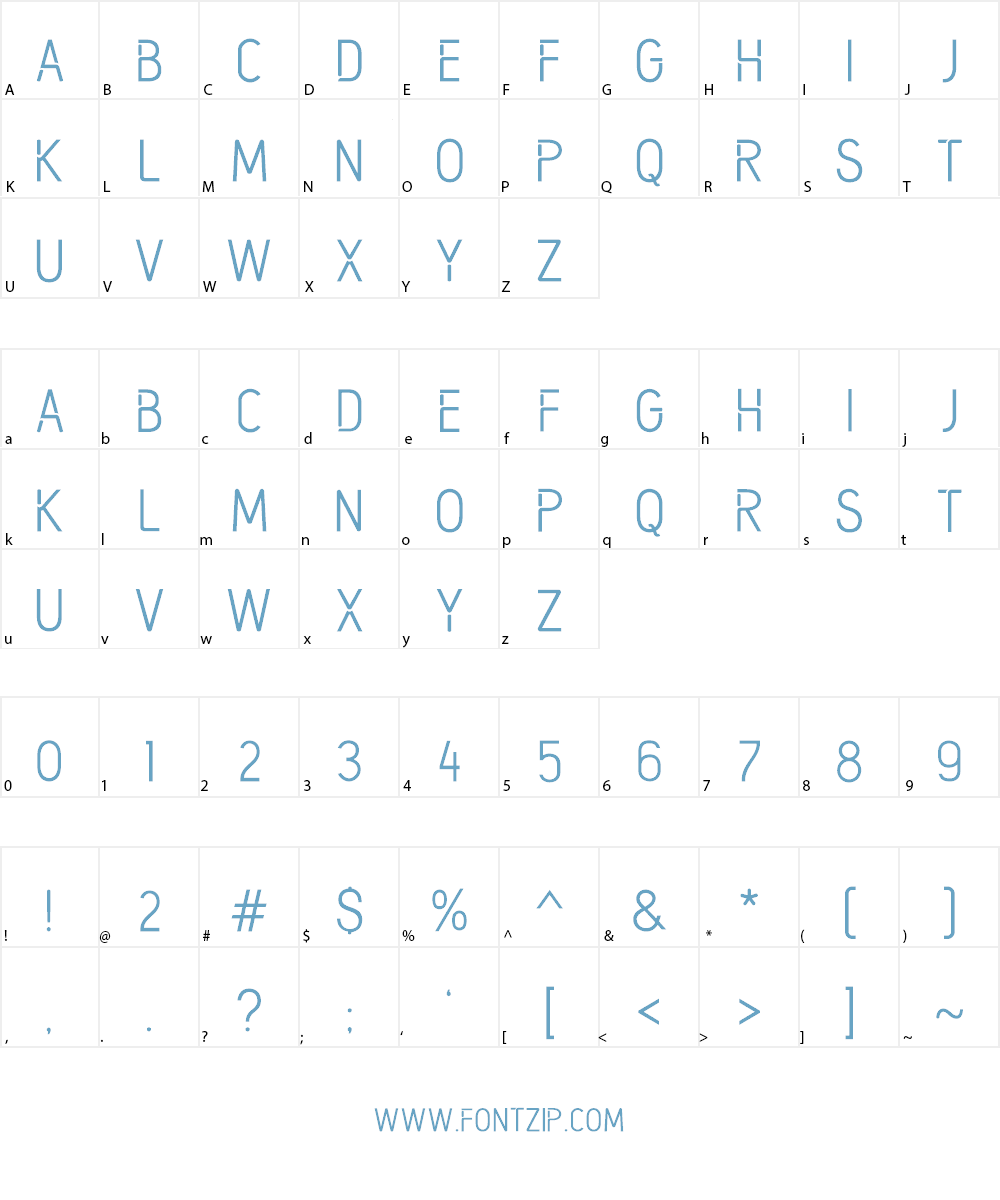
Capsule X Pro is a condensed sans-serif with Stencil hybrid look. Inspired from self esteem, mental peace, enlightenment and motivation symbolized as capsule- A driving force. This is free uppercase version. Full version supports extended Latin characters and Cyrillic alphabet. For commercial use donation and a separate confirmation mail using "CONTACT DESIGNER" required.
Weight: Regular and Medium